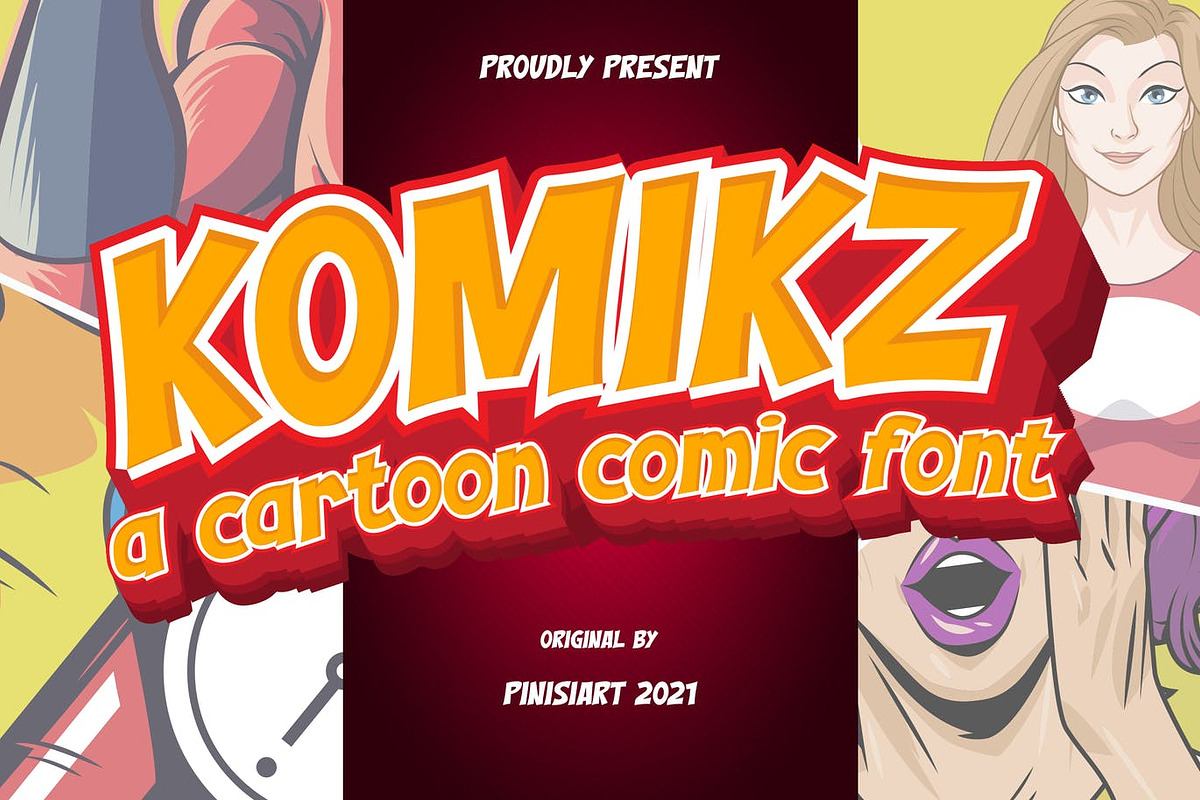
KOMIKZ – Cartoon Font Free Download
KOMIKZ – Cartoon Font Free Download is a fun, bold, and playful typeface designed to bring a burst of energy to your creative projects. Perfect for comic books, children's content, posters, and animated branding, this font captures attention with its quirky and expressive letterforms. If you're aiming to add a light-hearted and cheerful vibe to your designs, KOMIKZ is the ideal choice.
Whether you're designing a YouTube thumbnail, a party invitation, or a kid-friendly product label, the KOMIKZ – Cartoon Font Free Download offers the flexibility and charm to make your work pop. Its thick strokes and animated style make it easily readable while keeping the tone fun and engaging.